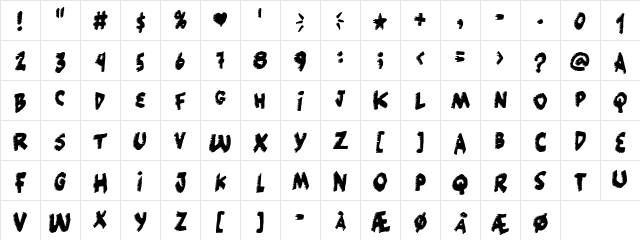
Popcorn NOT included Regular Free Font
Popcorn NOT included Regular
Complete Popcorn NOT included Regular glyph index. Displaying only characters natively supported by Popcorn NOT included Regular font.
Design Context for Popcorn NOT included
Popcorn NOT included is a composed and adaptable typeface that performs quietly and consistently across a wide range of design contexts.